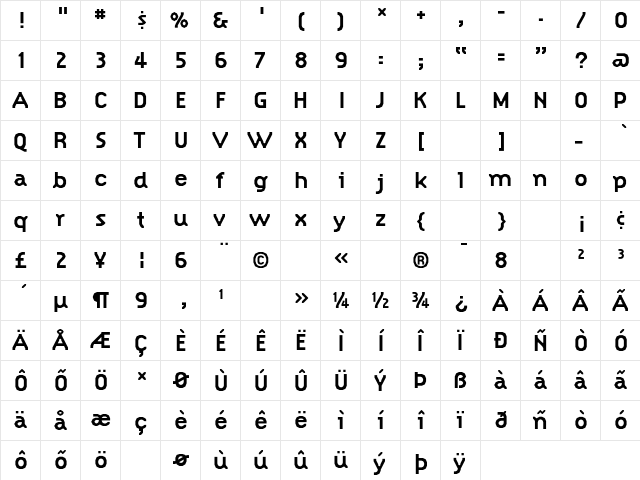
Citizen Bold
Design Context for Citizen Typeface
Citizen is a composed and adaptable typeface that performs quietly and consistently across a wide range of design contexts. The heavy weight commands attention and anchors typographic hierarchies.
Pro Tip: Use Citizen in both headline and body roles to test its range before committing to a single application.